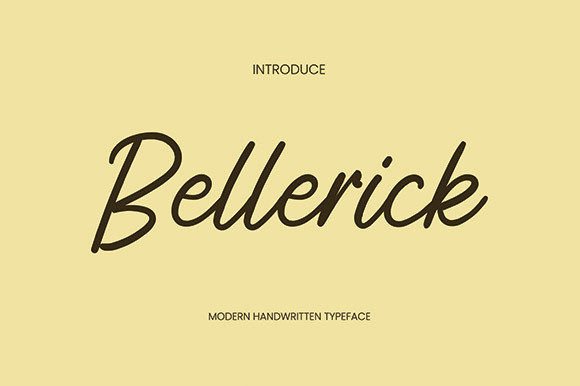
Dive into the world of Bellerick Font, a captivating script font designed to turn your creative visions into captivating realities. Step into a realm where elegance meets innovation, where each letter dances with grace, flowing seamlessly to weave a tapestry of visual delight.
With Bellerick Font, you'll have a font that's not just a collection of characters, but a symphony of curves and strokes, each carefully crafted to evoke emotion and make a statement. Experience the soft caress of its sweeping strokes as they intertwine, forming words that resonate with beauty and intrigue.
Bellerick Font isn't just another font; it's an artistic expression, a tool to unleash your storytelling prowess. Whether you're a graphic designer, a blogger, or a crafter, Bellerick Font will transform your projects into works of art. Craft logos that sizzle with personality, design blog headers that captivate your audience, and create invitations that exude timeless elegance.
Imagine your social media posts adorned with Bellerick's enchanting curves, captivating your followers with visually stunning quotes and messages. Let your blog posts dance with flair, as Bellerick's graceful strokes weave a narrative that transports your readers to worlds unknown.
Bellerick Font breathes life into your creative endeavors, bringing a touch of sophistication to your designs. It's the perfect choice for fashion brands seeking to capture the essence of luxury, for clothing designers aiming to create labels that speak volumes, and for letterheads that demand attention.
With Bellerick Font, your imagination is the only limit. Unleash your creativity and embark on a journey of visual enchantment. Discover the boundless possibilities that await you within the world of Bellerick Font, where beauty and innovation intertwine to create a font that will leave you spellbound.